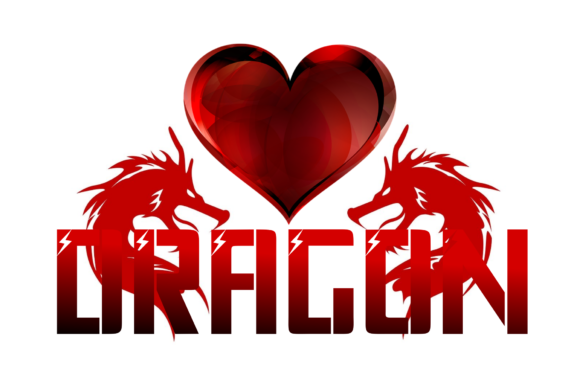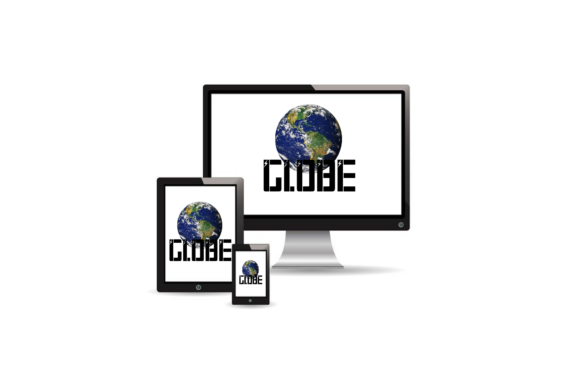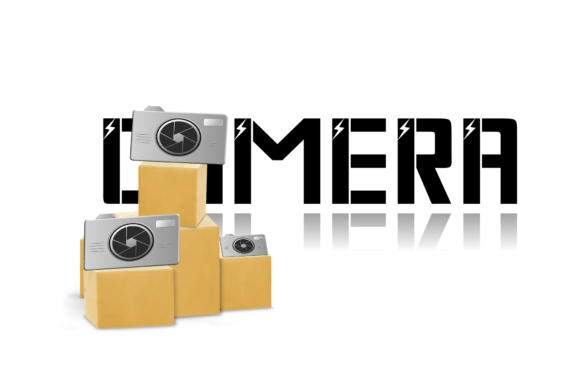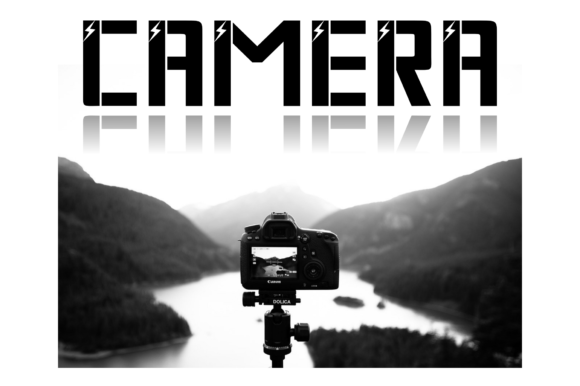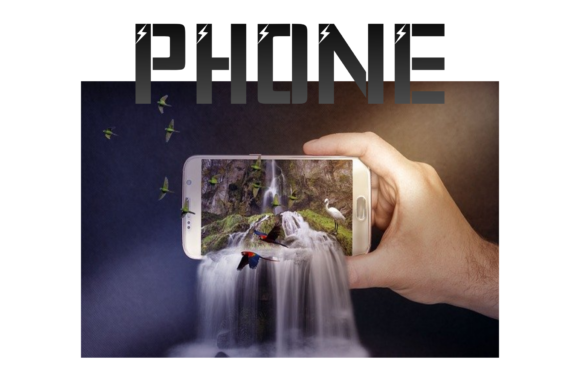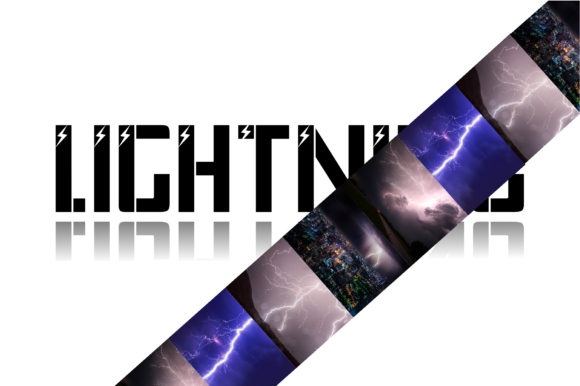
The Designer’s Delight: Unleashing the Power of Baroh Electric Font
Ah, the quest for the perfect font! I still remember the countless hours I spent searching for a font that would bring my design project to life. My client wanted something bold, authentic, and eye-catching – and I was determined to deliver. That’s when I stumbled upon Baroh Electric, a bold and authentic display font that has since become a staple in my design toolkit.
A First Impression: What Makes Baroh Electric Special
Baroh Electric celebrates abstract shapes in all their eclectic beauty. This font is not just a collection of letters; it’s an experience. It’s perfect for designers, crafters, and creative hobbyists looking to add a touch of personality to their projects. With Baroh Electric, you can expect:
- ✨ Bold and authentic display font
- ✅ Unique and eclectic design
- 🔥 Perfect for making your creative ideas stand out
An Honest Review: The Good, the Bad, and the Quirky
What I Love About Baroh Electric
- ✨ Its versatility – use it for headings, titles, or even logos
- ✅ The font’s unique design, which adds a touch of personality to any project
- 🔥 Its ability to make even the most mundane designs stand out
While Baroh Electric is an amazing font, it’s not without its quirks. For instance:
- ⚠️ It may not be the best choice for body text, as it’s quite bold and attention-grabbing
- 🤔 Some users may find the font’s eclectic design a bit overwhelming or distracting
- Take advantage of OpenType features, glyphs, and stylistic alternates to customize your text
The Story Behind Baroh Electric: Designer Inspiration
The story behind Baroh Electric is one of creative experimentation and innovation. While the actual designer is unknown, it’s clear that they were inspired by the world of abstract shapes and eclectic design. With Baroh Electric, they aimed to create a font that would celebrate individuality and self-expression.
Q: What is Baroh Electric font?
A: Baroh Electric is a bold and authentic display font that celebrates abstract shapes in all their eclectic beauty.
Q: Is Baroh Electric suitable for body text?
A: While Baroh Electric can be used for body text, it’s not the most recommended use case. Its bold and attention-grabbing design makes it more suitable for headings, titles, or logos.